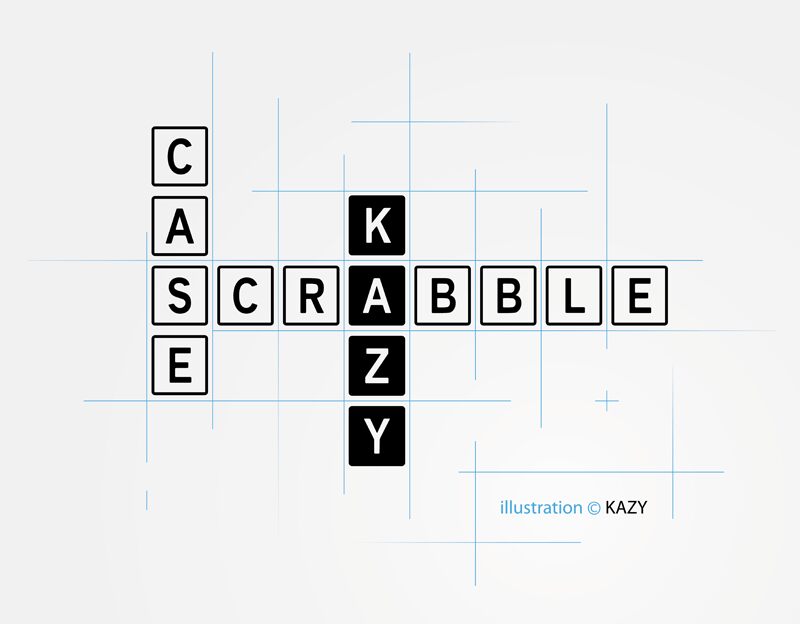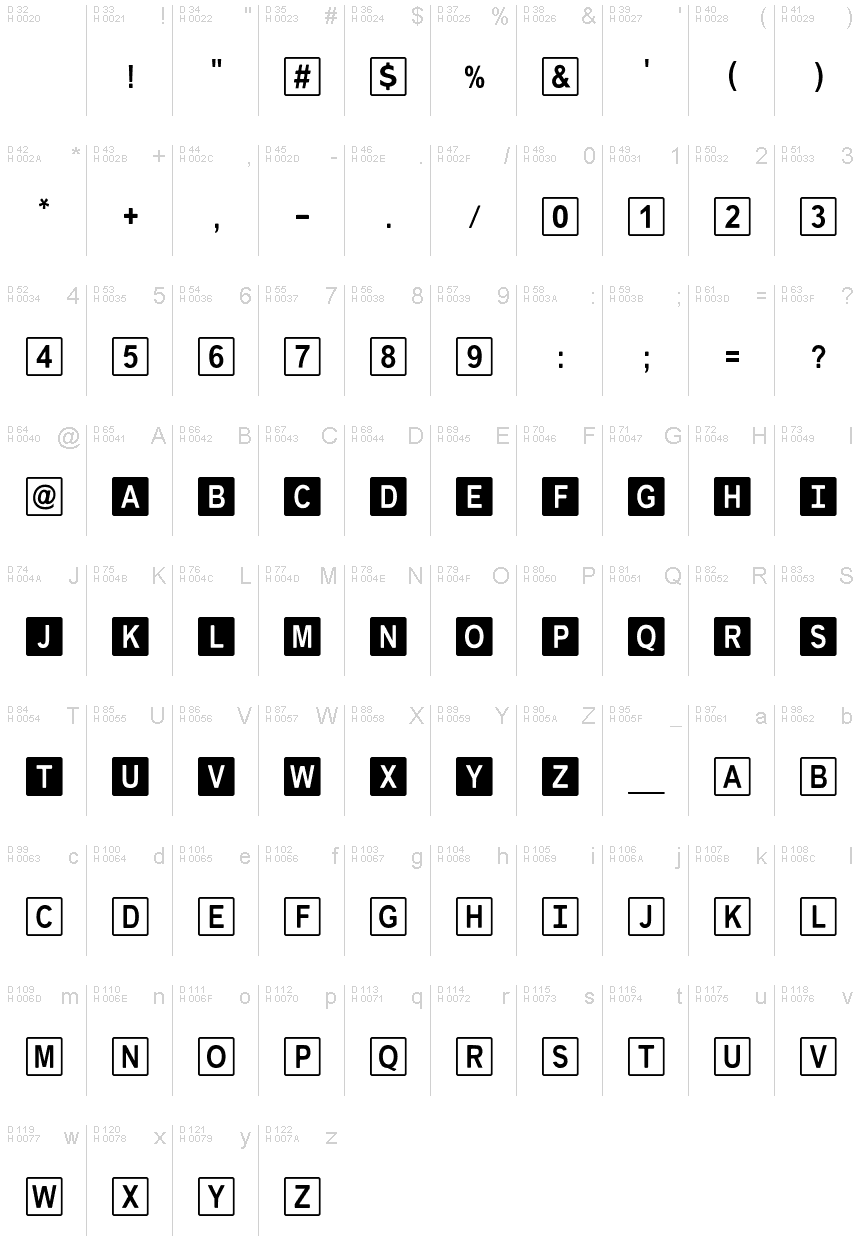
KAZYcase scrabble
KAZYcase scrabble font is a free decorative typeface designed by Kazy that can be used in some countries in Europe.
You can alternate the white and black squares for your compositions.
Upper case letters are black and lower case letters white.